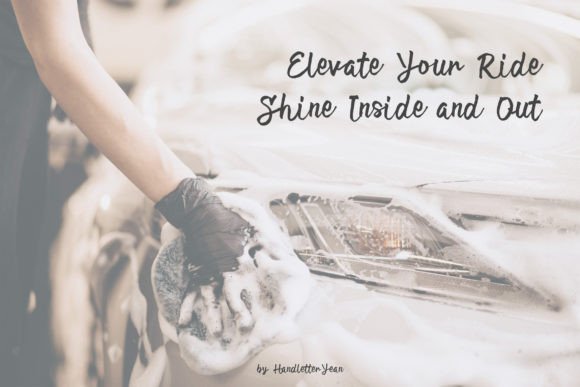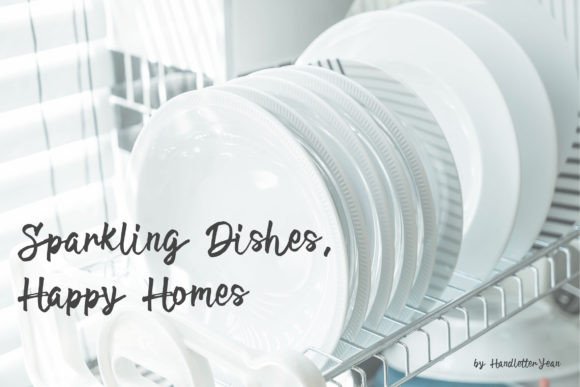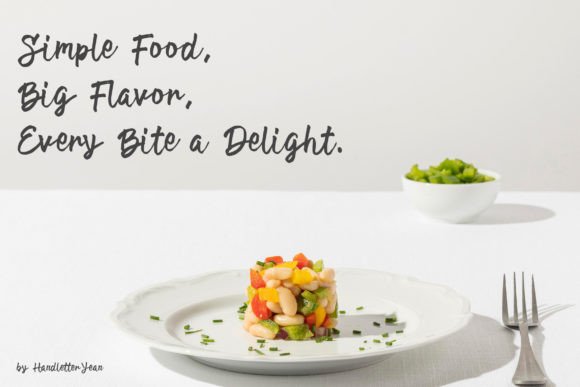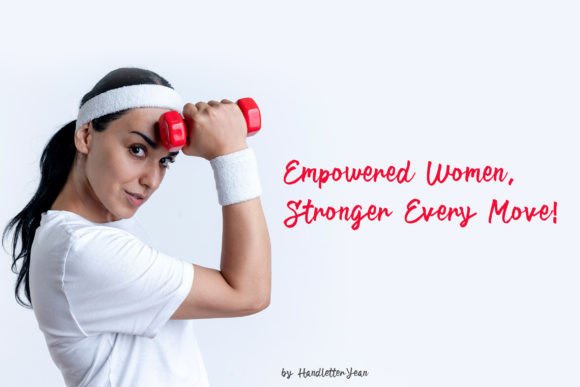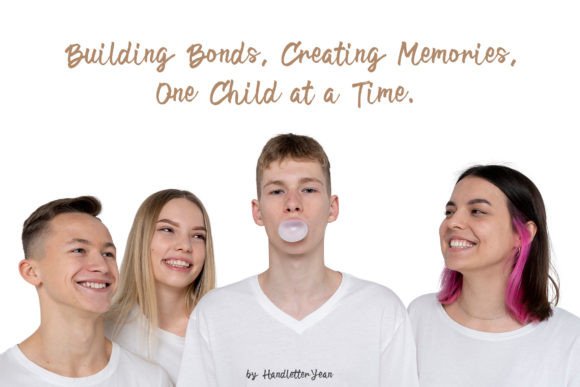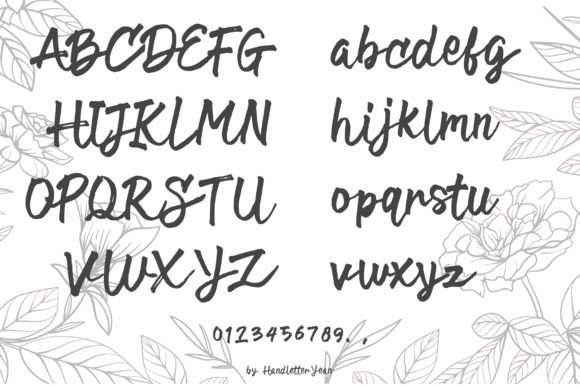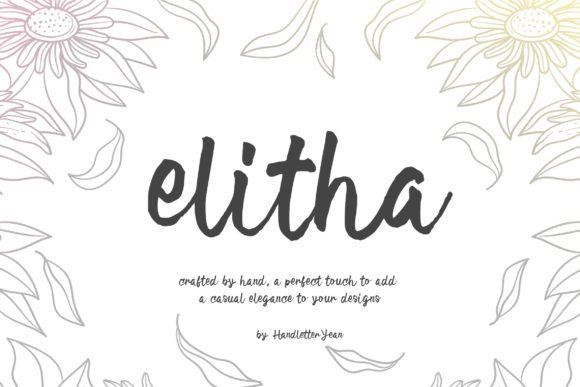
Discover the Unique Charm of Elitha Font: Elevate Your Designs with Artisanal Elegance
Are you tired of using the same old fonts in your designs? Do you want to add a touch of sophistication and charm to your projects? Look no further than Elitha font, a meticulously hand-drawn typeface that infuses your designs with a unique blend of elegance and whimsy. In this article, we’ll explore the artisanal allure of Elitha font and how it can elevate your designs to the next level.
The Art of Hand-Drawn Typography
Elitha font is a true labor of love, crafted with precision and care to bring you a truly unique typographic experience. Each letterform has been meticulously hand-drawn to ensure that every curve, line, and detail is perfect. The result is a font that exudes a sense of warmth and personality, perfect for designers and crafters who want to add a human touch to their projects.
Effortless Style for Any Design Project
One of the standout features of Elitha font is its effortless style. Whether you’re crafting invitations, posters, or any other design masterpiece, Elitha’s casual elegance adds a touch of sophistication that’s hard to achieve with more traditional fonts. The font’s versatility means it can be used for a wide range of projects, from formal events to more relaxed, creative endeavors.
Perfect for:
- Invitations and wedding stationery
- Social media graphics and blog headers
- Any design project that requires a touch of elegance and whimsy
The Benefits of Using Elitha Font
So why choose Elitha font for your next design project? Here are just a few benefits of using this beautiful, hand-drawn typeface:
- Unique and distinctive: Elitha font is unlike any other font you’ll find. Its hand-drawn letterforms ensure that your designs will stand out from the crowd.
- Elegant and sophisticated: Elitha’s effortless style adds a touch of sophistication to any design project, making it perfect for formal events and more creative endeavors.
- Versatile: Elitha font can be used for a wide range of projects, from invitations and posters to branding and packaging design.
Embracing the Beauty of Handmade Artistry
In an era of digital design, it’s easy to get lost in a sea of generic fonts and templates. But with Elitha font, you can add a touch of handmade artistry to your designs. Each letterform has been carefully crafted to bring you a unique and distinctive typographic experience. By choosing Elitha font, you’re supporting the art of hand-drawn typography and adding a touch of personality to your designs.
Elitha font is a true gem for designers and crafters who want to add a touch of sophistication and charm to their projects. With its meticulously hand-drawn letterforms and effortless style, Elitha font is perfect for any design project that requires a unique and distinctive typographic experience. So why wait? Download Elitha font today and elevate your designs to the next level!
Experience the artisanal allure of Elitha font – meticulously hand-drawn to infuse your designs with a unique blend of sophistication and charm. Whether you’re crafting invitations, posters, or any design masterpiece, Elitha’s effortless style adds a touch of casual elegance to every project. Embrace the beauty of handmade artistry and elevate your designs with Elitha font today!